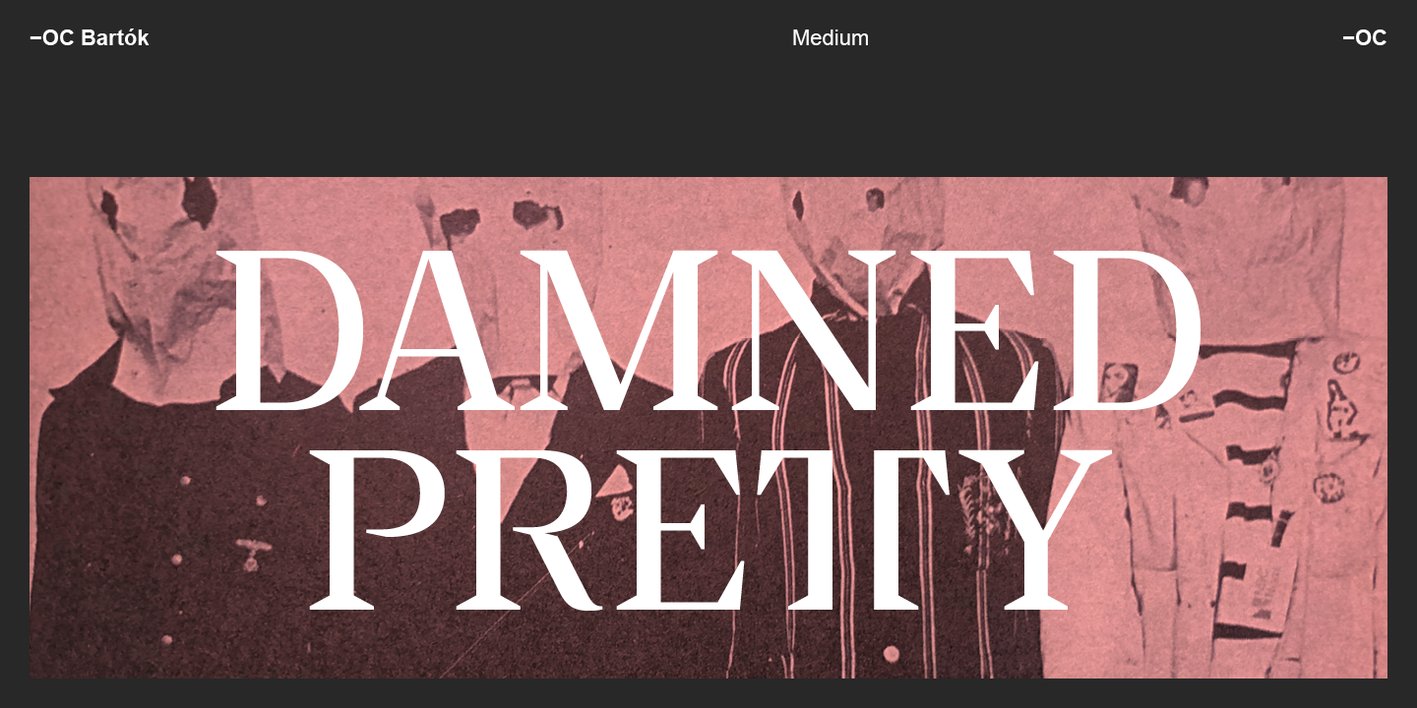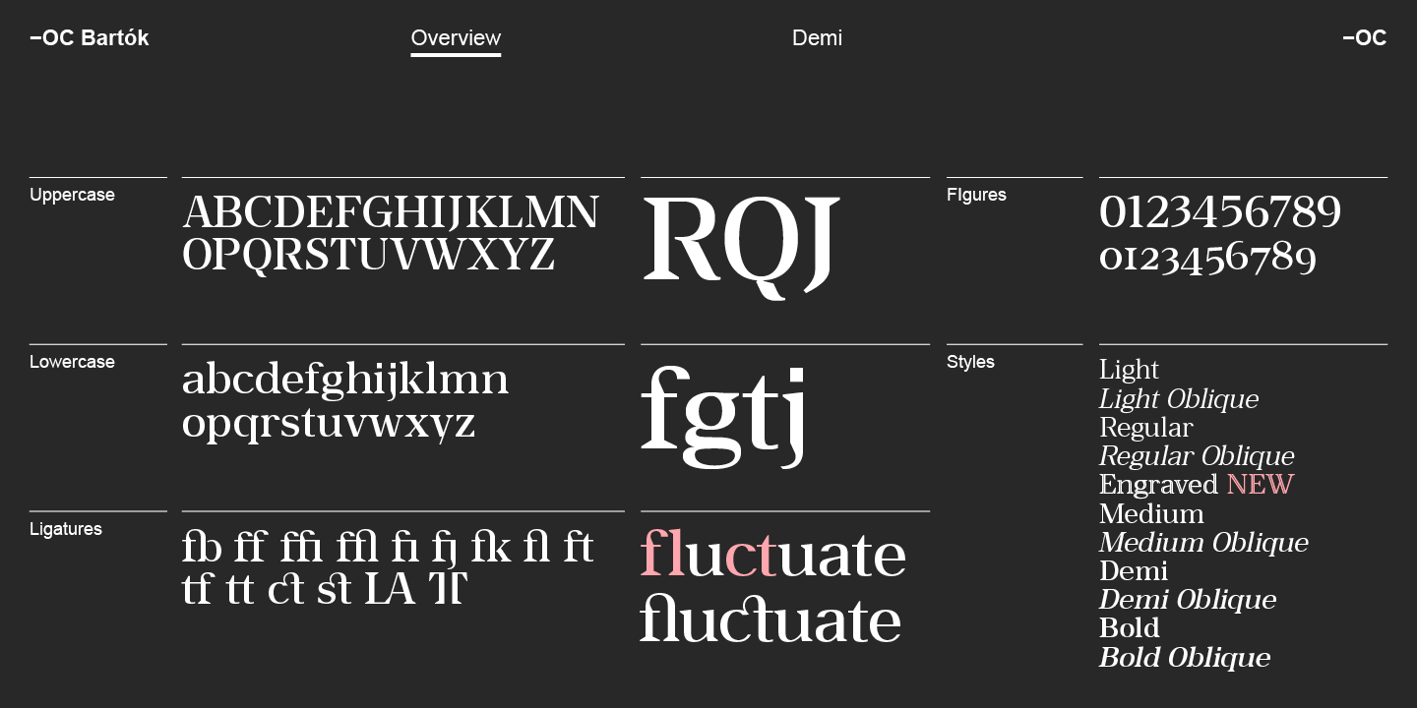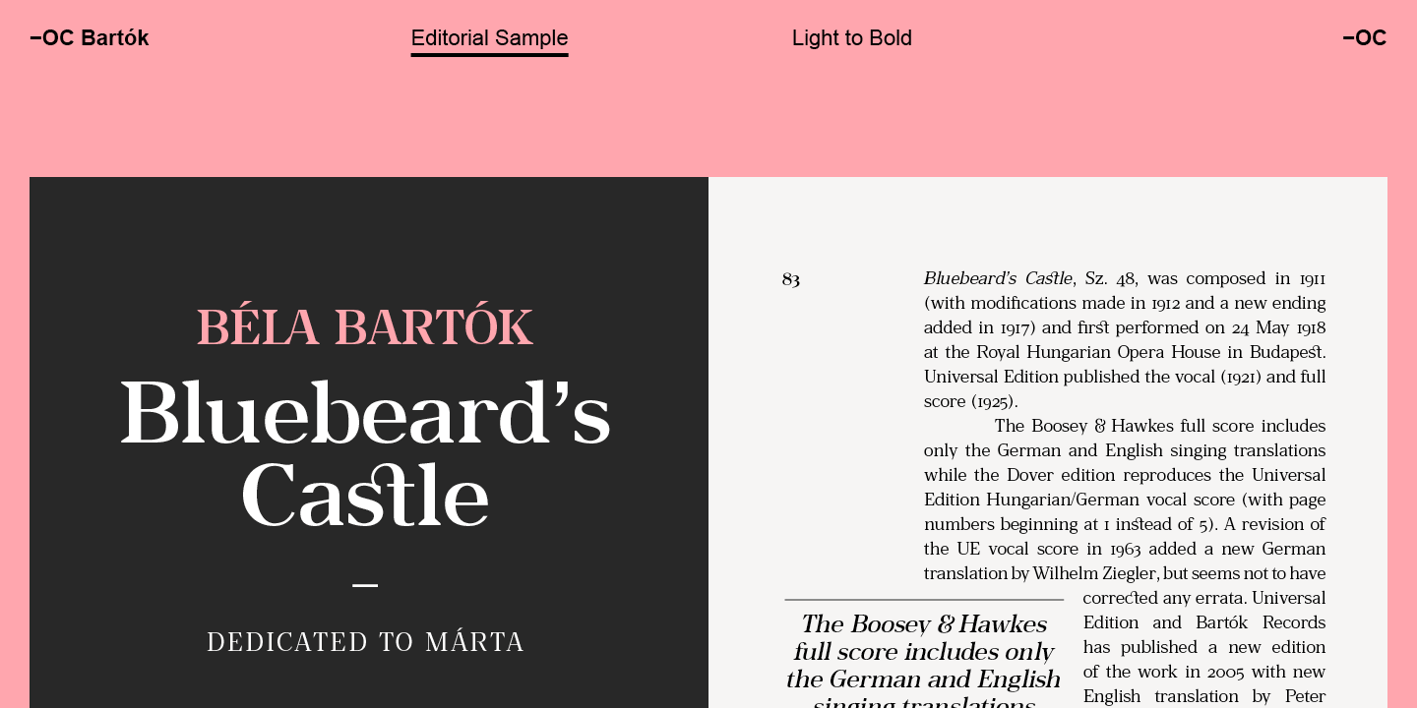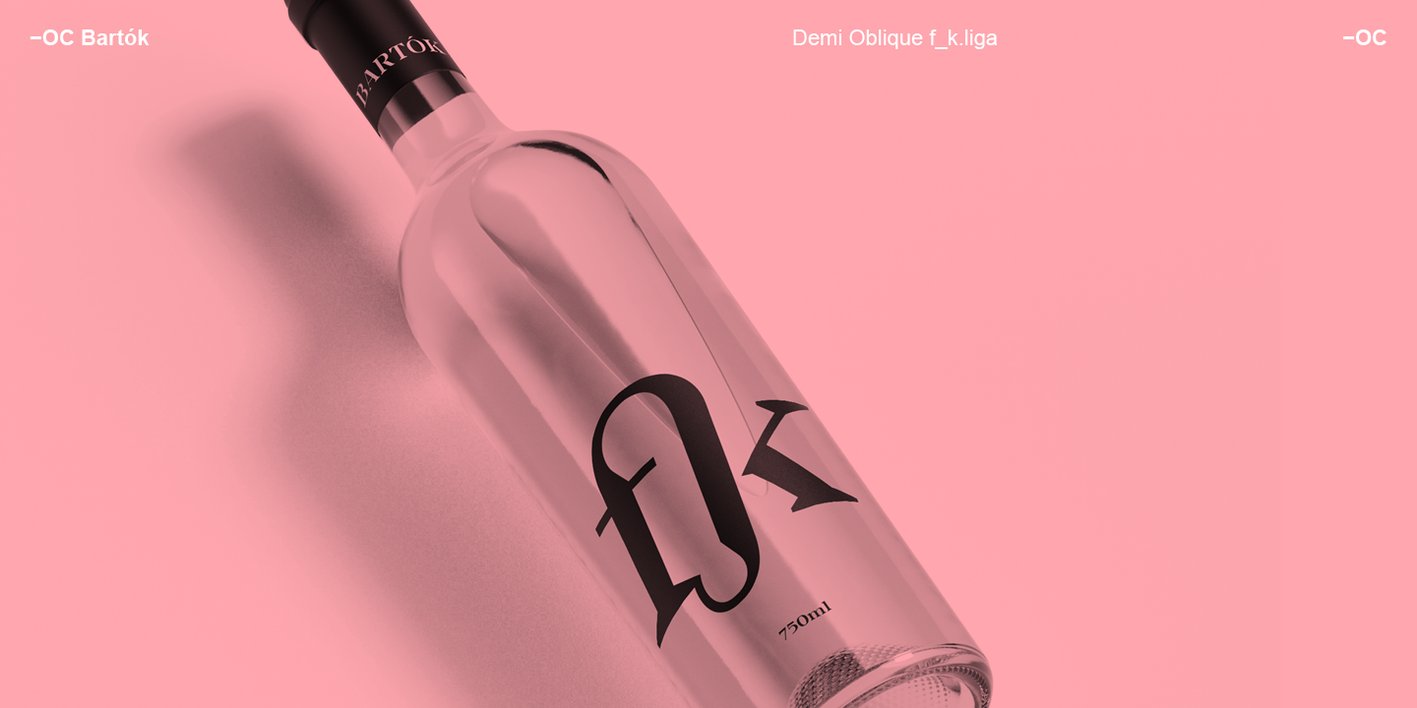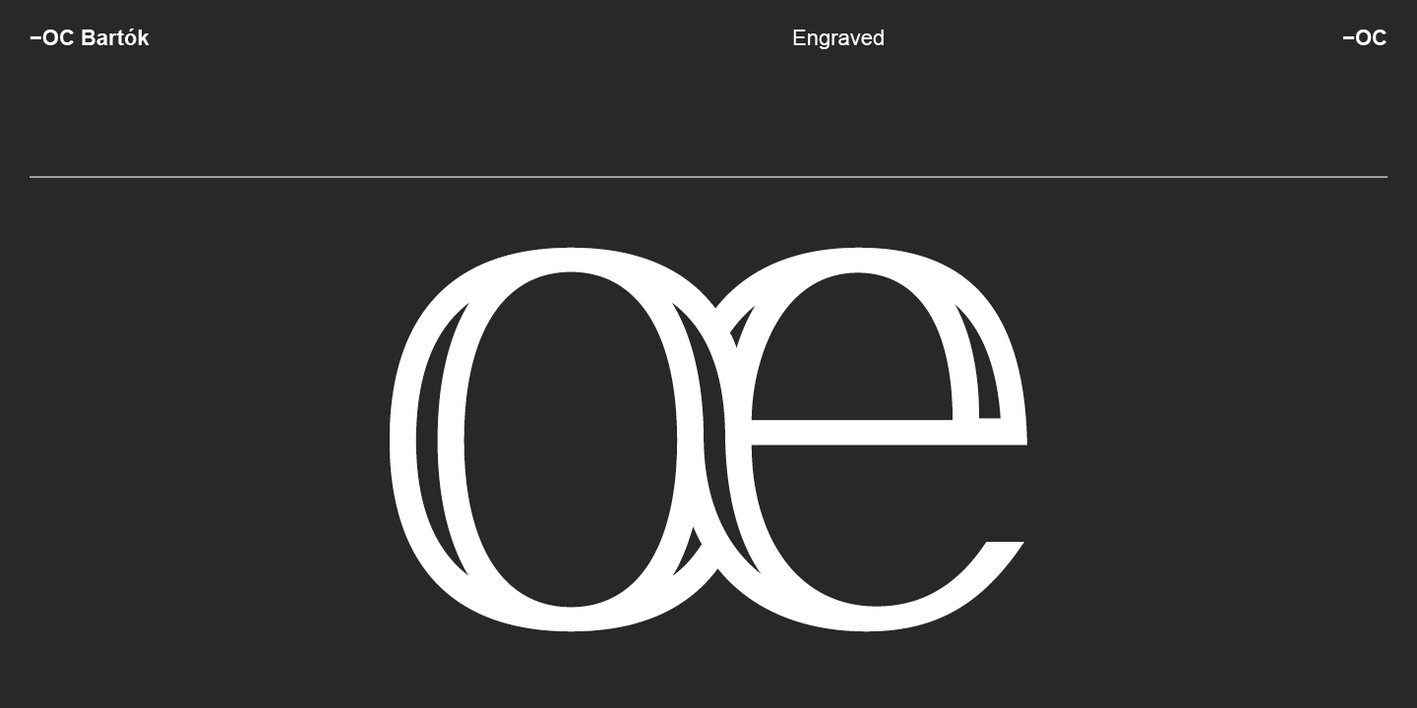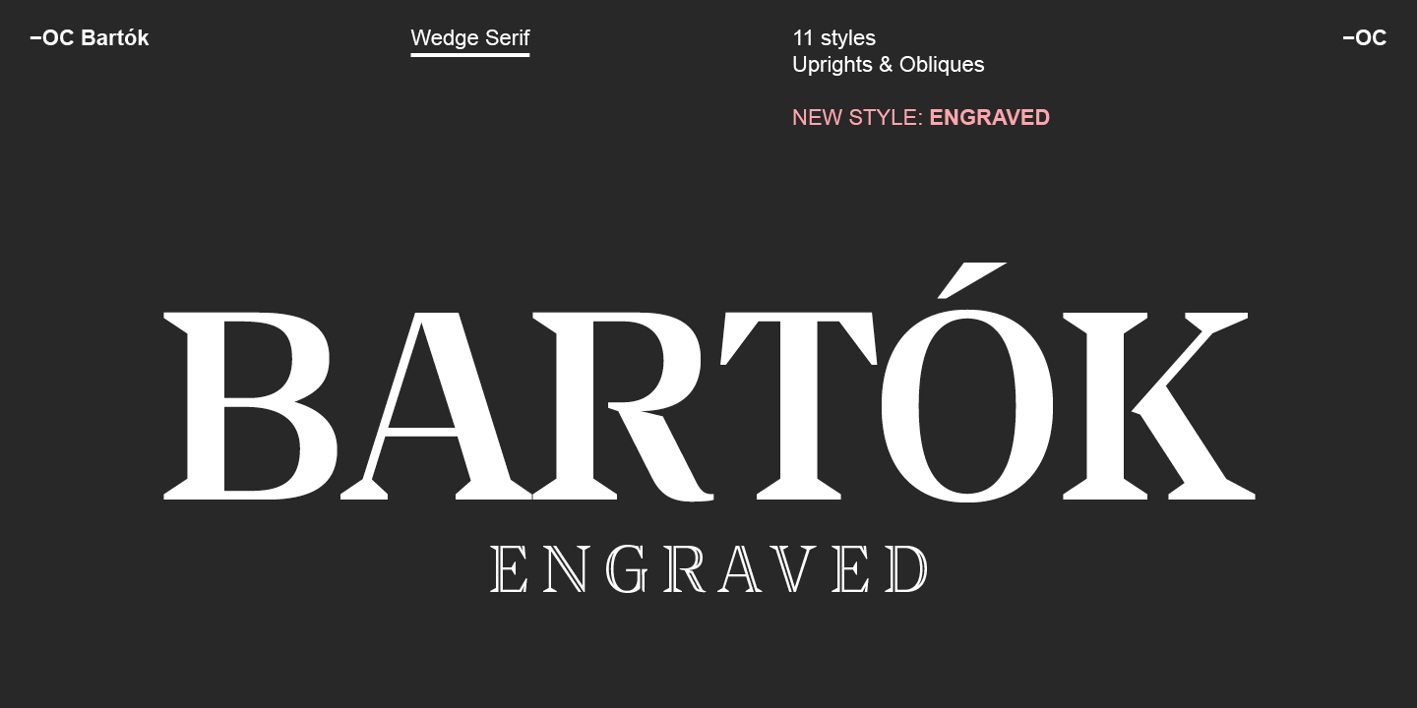
-OC Bartok Font
-OC Bartok Font is perfect for classical music concert programs, contemporary orchestral presentations, avant-garde music festivals, modern composition publications, experimental music venue branding, ethnomusicology research materials, cultural music heritage displays, innovative composer portfolios, academic music theory texts, and sophisticated musical institution signage. This innovative typeface brings compositional complexity and musical sophistication to any classical music project.
-OC Bartok Font is exciting because it embodies the revolutionary spirit and compositional innovation of modern classical music, featuring structured yet dynamic letterforms that capture the rhythmic complexity and harmonic sophistication that defines contemporary classical composition. Its musical character instantly conveys artistic innovation, intellectual depth, and the bold creativity that pushes musical boundaries beyond traditional classical conventions.
-OC Bartok Font family includes Light, Regular, Medium, and Bold weights with compositional alternates, rhythmic flourishes, musical ornamental elements, and innovative symbols that enhance the contemporary classical aesthetic, providing music designers with sophisticated tools for creating typography that celebrates modern musical composition and avant-garde artistic expression.
Contemporary classical designers appreciate -OC Bartok Font for its exceptional ability to convey musical complexity and compositional innovation through systematically crafted letterforms. The font's rhythmic character and musical details create immediate associations with modern composition, ethnomusicological research, and the scholarly pursuit of musical innovation that defines contemporary classical music and academic musical study.
The design inspiration behind -OC Bartok Font draws from modern musical notation, compositional structures, and the revolutionary approach to rhythm and harmony that characterizes 20th-century classical innovation, making it particularly effective for music institutions, contemporary composers, and cultural organizations seeking to establish authentic connections with modern classical music heritage. Academic teams working on musical research find this font essential.
Whether used for contemporary orchestras, music conservatories, or modern composition festivals, -OC Bartok Font delivers the perfect synthesis of musical sophistication and compositional innovation. Its classical appeal and contemporary edge make it an indispensable choice for organizations that celebrate modern musical composition, support innovative composers, and advance the evolution of classical music into new artistic territories.